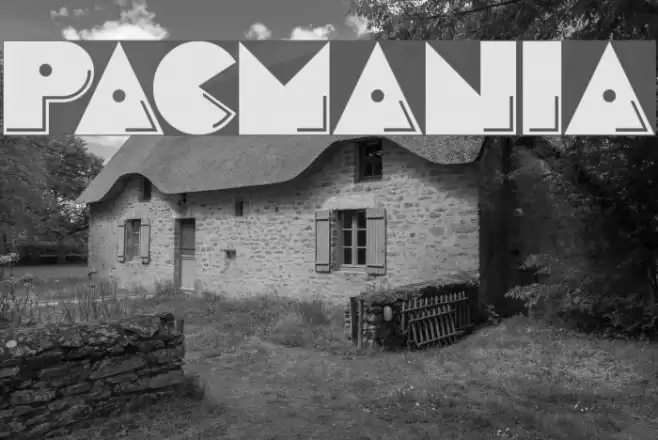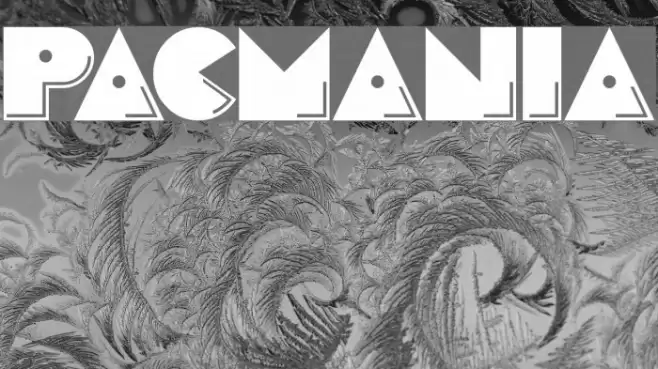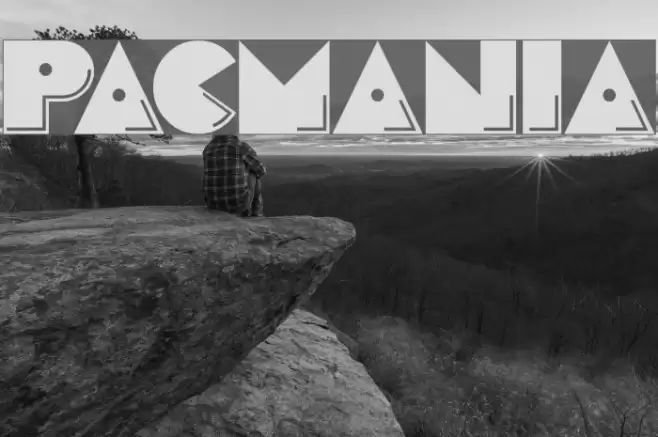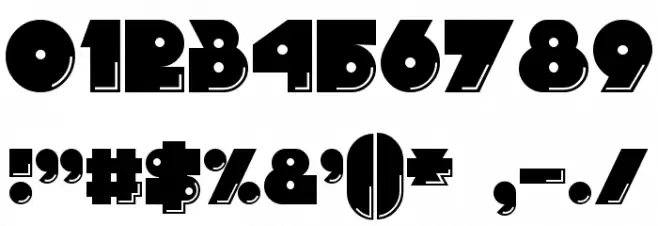
Pacmania Font
Pacmania Description
This font is a bold, geometric display typeface with a playful and retro aesthetic. Each character is constructed with strong, angular lines and circular cutouts, reminiscent of classic arcade games. The uppercase letters are particularly striking, with their solid, block-like forms that convey a sense of strength and nostalgia. The numbers and special characters maintain this cohesive style, making the font ideal for projects that require a vintage or playful touch. Its unique design elements make it stand out, capturing attention with its bold presence.
A bold, geometric display font with a retro arcade-inspired style from Uncategorized fonts.
- Proposed Projects: Ideal for video game graphics, retro-themed posters, branding for entertainment venues, and playful merchandise designs.
- Overall Style: Retro, Playful